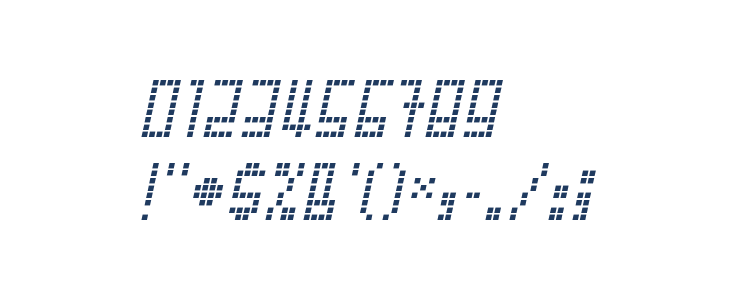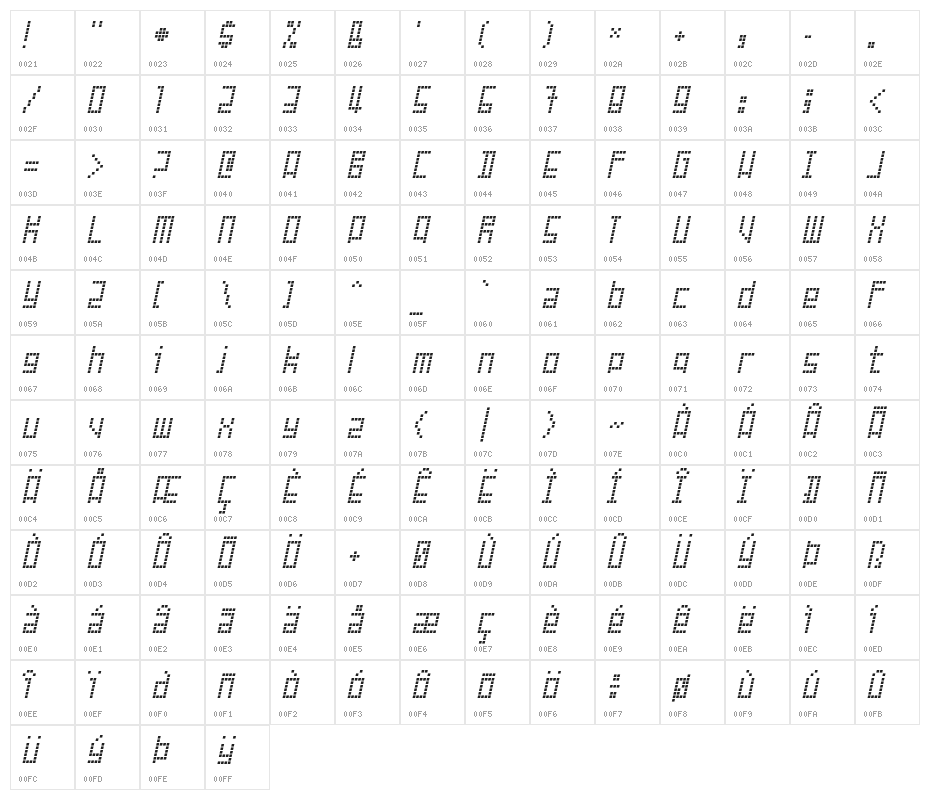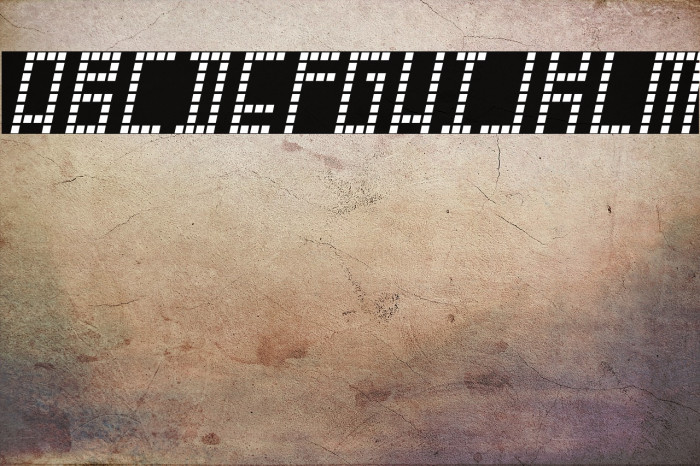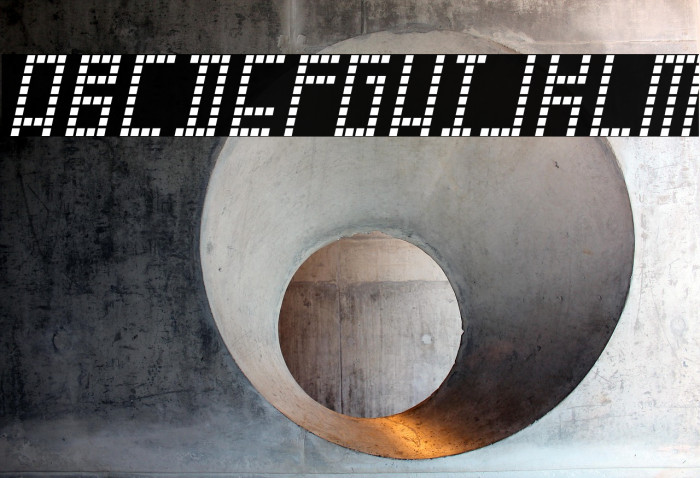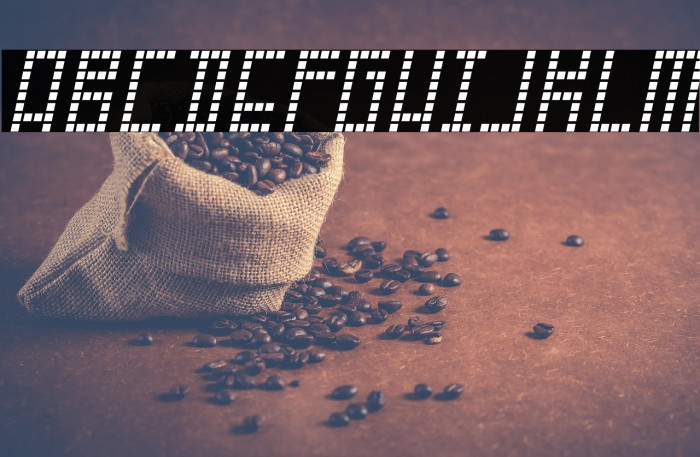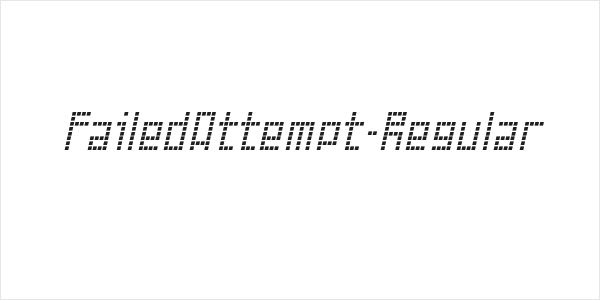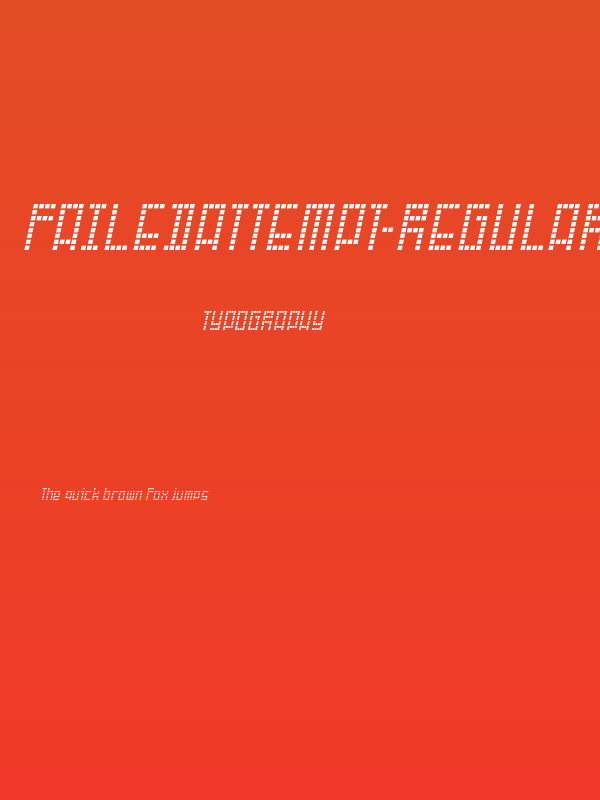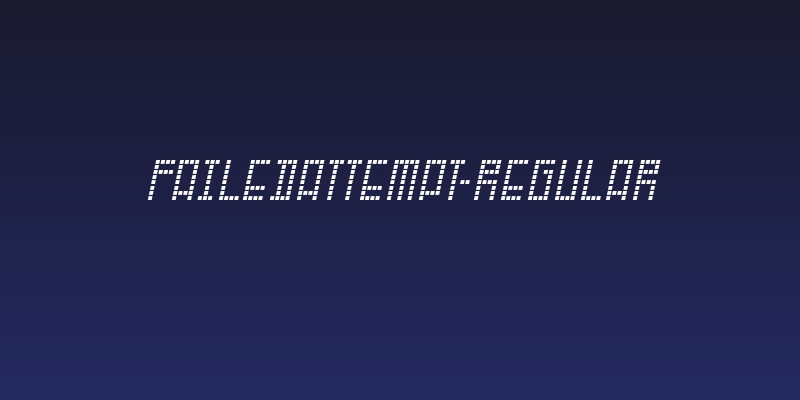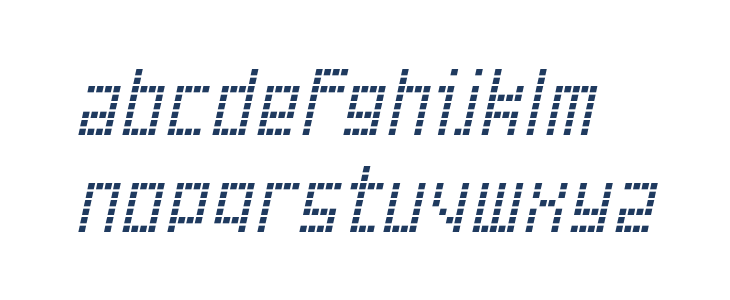
FailedAttempt-Regular Font
FailedAttempt-Regular Description
This font features a unique pixelated design, where each character is constructed from a grid of small squares, giving it a digital and modern appearance. The uppercase and lowercase letters maintain a consistent height, creating a uniform look across the text. The numerals and special characters follow the same pixelated pattern, ensuring cohesion throughout. The style is reminiscent of early digital displays or retro video games, making it ideal for projects that require a technological or nostalgic feel. The font's geometric structure provides a clean and organized aesthetic, while the pixelated form adds a playful and creative touch.
| Use Case | Logos, Headlines, Digital displays |
| Proposed Projects | Ideal for digital art, retro-themed designs, video game graphics, and tech-related branding. |